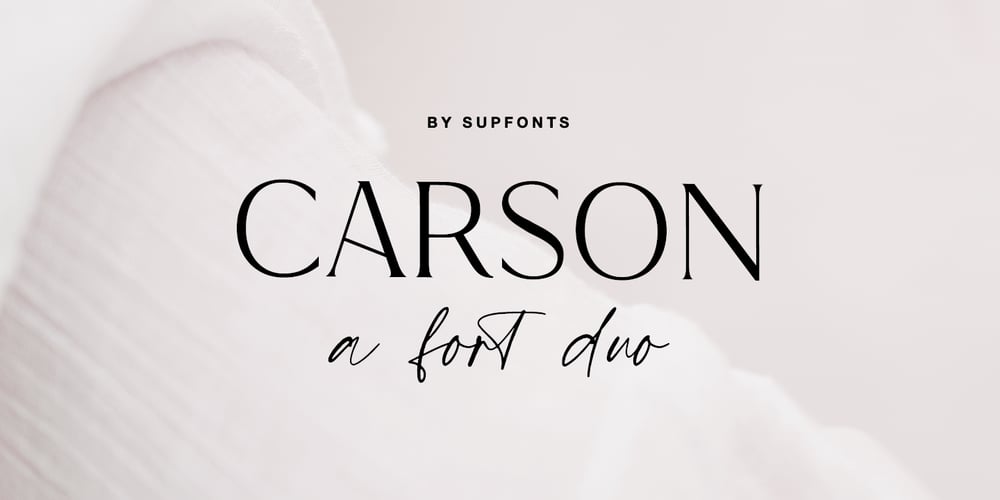
Carson Font Family was designed by Dmitrii Chirkov and published by Supfonts. Carson contains 2 styles and family package options. Carson Font Duo is a combination of a sophisticated serif typeface and a relaxed handwritten script. It has a contemporary and uncomplicated design that adds an elegant and tidy touch to various projects such as websites, logos, branding, social media quotes, wedding stationery, and more.I appreciate you visiting my shop. Don’t hesitate to contact me if you have any inquiries.-DimaCarson Font Features:- Full Set of standard alphabet and punctuation- Ligatures- PUA Encoded – no special software needed to access extra characters- Language support: All European languages- Multilingual Characters AÁĂÂÄÀĀĄÅÃÆBCĆČÇĊDÐĎĐEÉĚÊËĖÈĒĘẼFGĞĢĠḠHĦIIJÍÎÏİÌĪĮĨJKĶLĹĽĻŁMNŃŇŅÑ OÓÔÖÒŐŌØÕŒPÞQRŔŘŖSŚŠŞȘẞTŤŢȚUÚÛÜÙŰŪŲŮŨVWẂŴẄẀXYÝŶŸỲỸZŹŽŻ aáăâäàāąåãæbcćčçċdðďđeéěêëėèēęẽfgğģġḡhħiıíîïìijīįĩjȷkķlĺľļłmnńňņñoóôöòőōøõœpþ qrŕřŗsśšşșßtťţțuúûüùűūųůũvwẃŵẅẁxyýŷÿỳỹzźžż